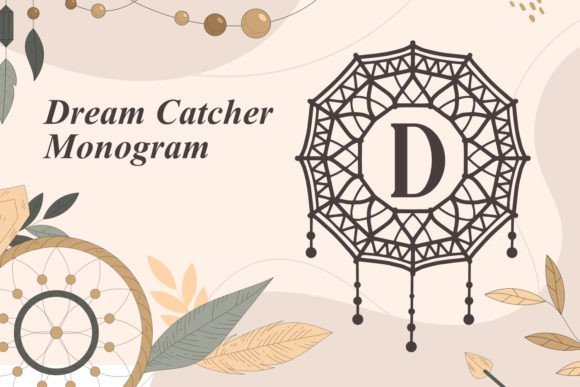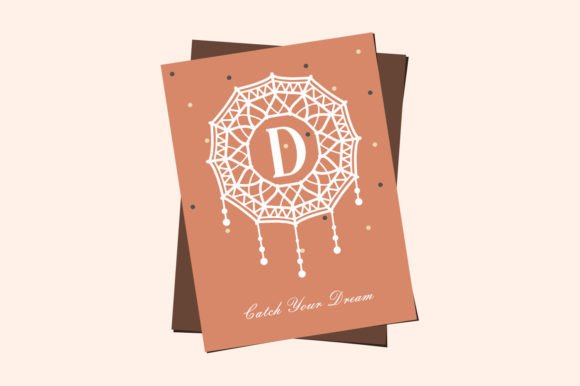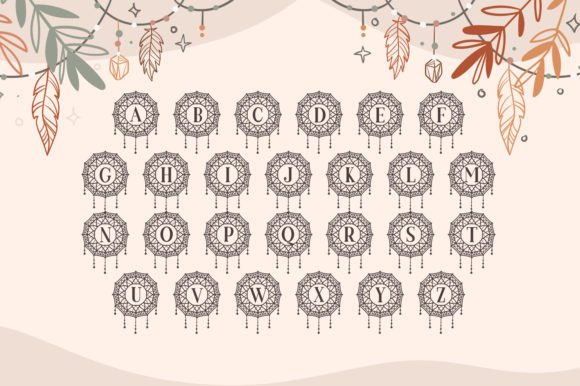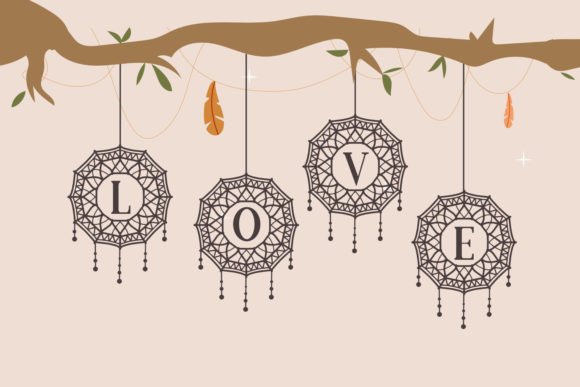
Unleash Your Creativity with the Dream Catcher Monogram Font
Have you ever stared at a blank page, trying to conjure up the perfect design? The cursor blinks, and your mind goes blank. It’s a moment we’ve all experienced as creatives, but with the right tools, it can be a thing of the past. Imagine having a font that captures the essence of delicate elegance and sophistication, making your designs truly stand out. This is where the Dream Catcher Monogram Font comes in – a genuine decorative font that adds a touch of magic to any project.
Whether you’re a digital designer, crafter, or simply someone who loves making beautiful things, the Dream Catcher Monogram Font is the perfect addition to your toolkit. Its versatility makes it suitable for a wide range of applications, from crafting and greeting card making to presentations and digital designing. With this font, you can create truly unique and captivating designs that leave a lasting impression.
- Unique Characteristics: Distinctive, hand-drawn monogram style with a whimsical, dreamcatcher-inspired aesthetic
Dream Catcher Monogram Font Review
As a designer, I was excited to dive into the Dream Catcher Monogram Font. Here’s my honest review.
- The font’s unique, whimsical design is perfect for adding a touch of magic to branding and design projects.
- The bold, playful lines of the monogram make it ideal for use in stationery, invitations, and other paper-based materials.
- The font’s customizable options, such as font size and color, make it easy to integrate into various design projects.
- The font may be too ornate for use in small text or body copy, which could make it difficult to read.
- The font’s design may not be suitable for modern or minimalist branding, as it has a more traditional, vintage feel.
The Dream Catcher Monogram Font is a charming, eye-catching addition to any designer’s toolkit. While it may have some limitations, its unique design and customization options make it a great choice for projects that require a touch of whimsy and personality.
Tips for Getting the Most Out of Dream Catcher Monogram Font
Use Dream Catcher Monogram Font to add a touch of elegance and sophistication to your designs. Here are some tips to get the most out of it:
- Use it sparingly to avoid overwhelming your design.
- Pair it with other fonts to create a balanced look.
- Experiment with different font sizes and colors to find the perfect combination.
Dream Catcher Monogram Font is perfect for: